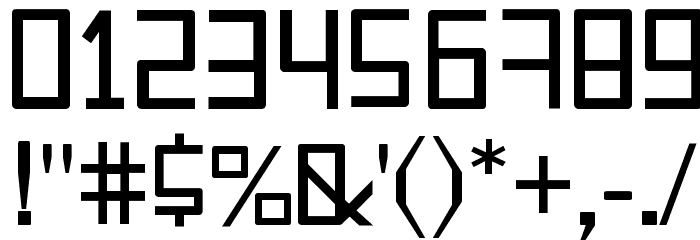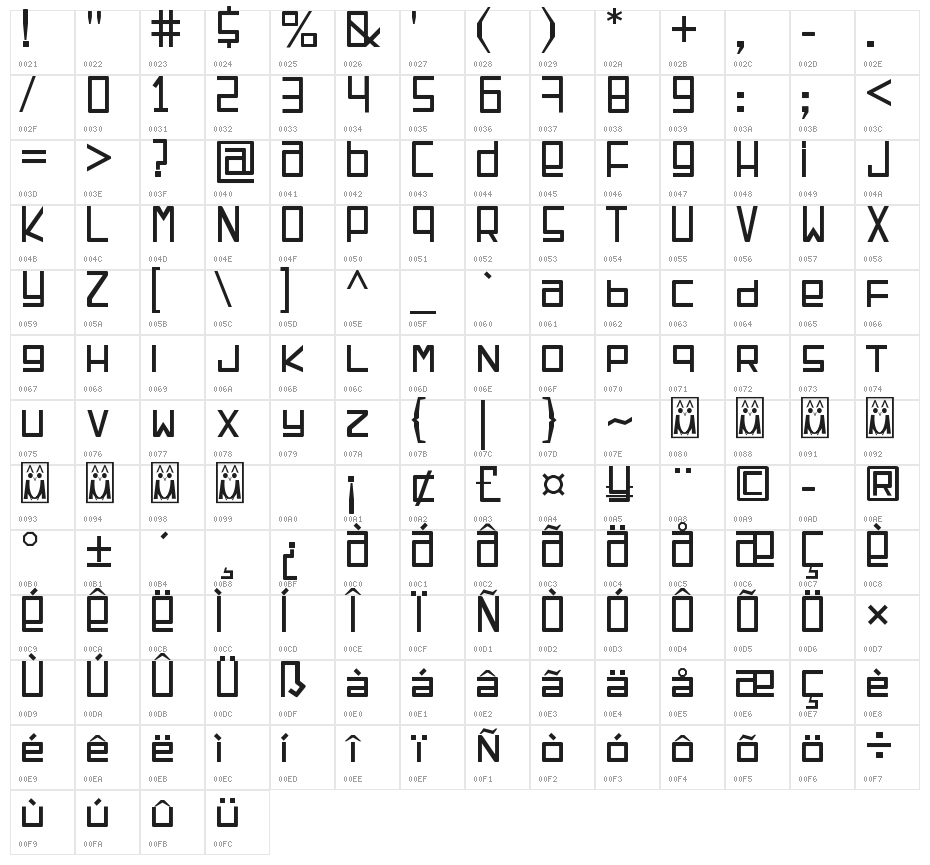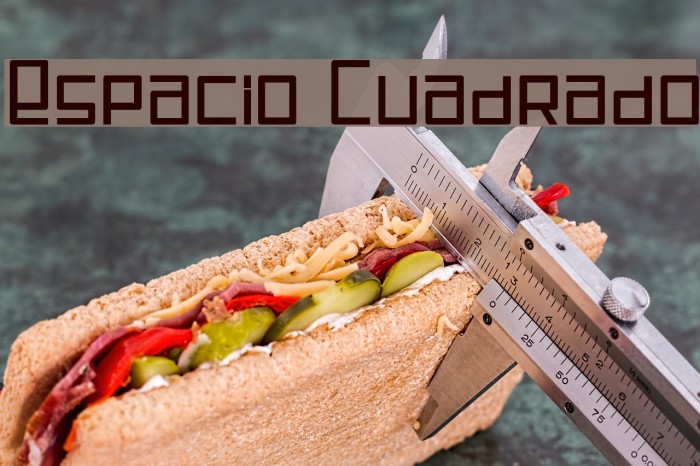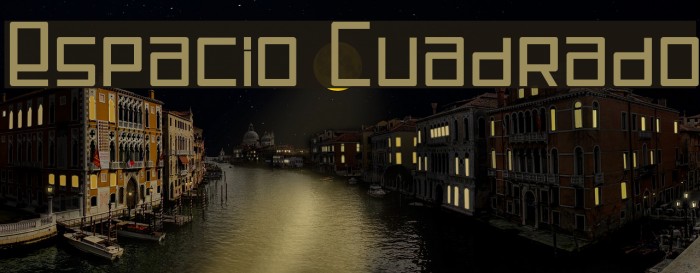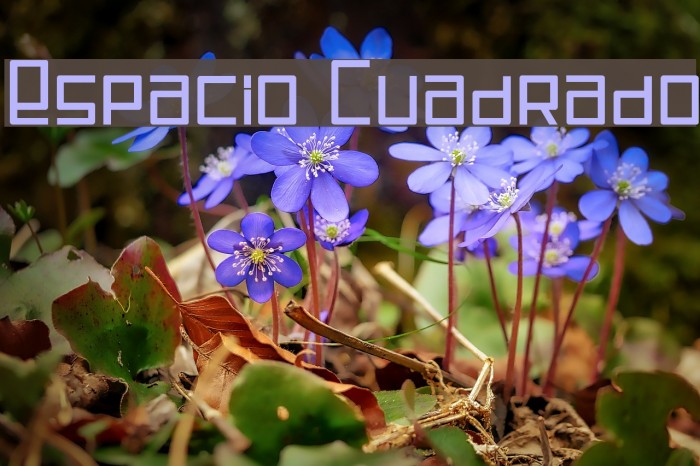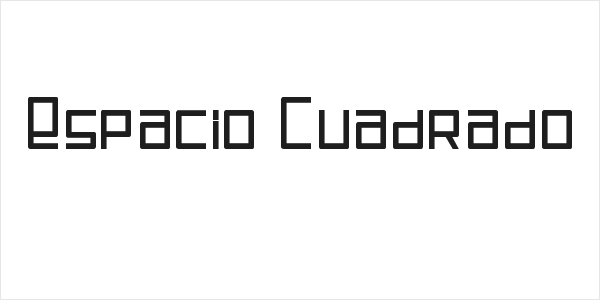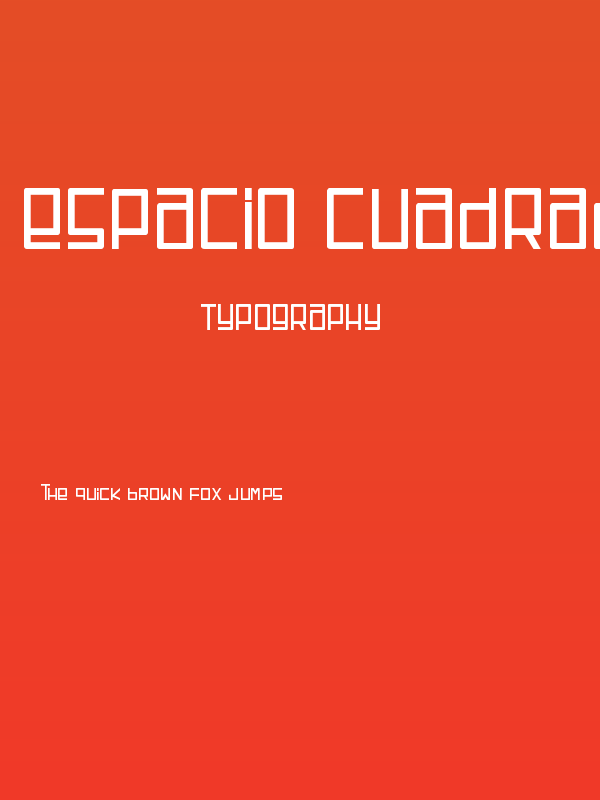
Espacio Cuadrado Font
Espacio Cuadrado Description
This font features a geometric and modern design with a square and angular aesthetic. Each character is constructed with straight lines and sharp corners, giving it a futuristic and technical appearance. The uniformity in stroke width across all characters contributes to a clean and cohesive look. The uppercase and lowercase letters maintain a consistent height, enhancing readability and balance. Numbers and special characters are designed with the same precision, ensuring a seamless integration with the alphabet. This font's structured and minimalistic style makes it suitable for contemporary and digital-themed projects.